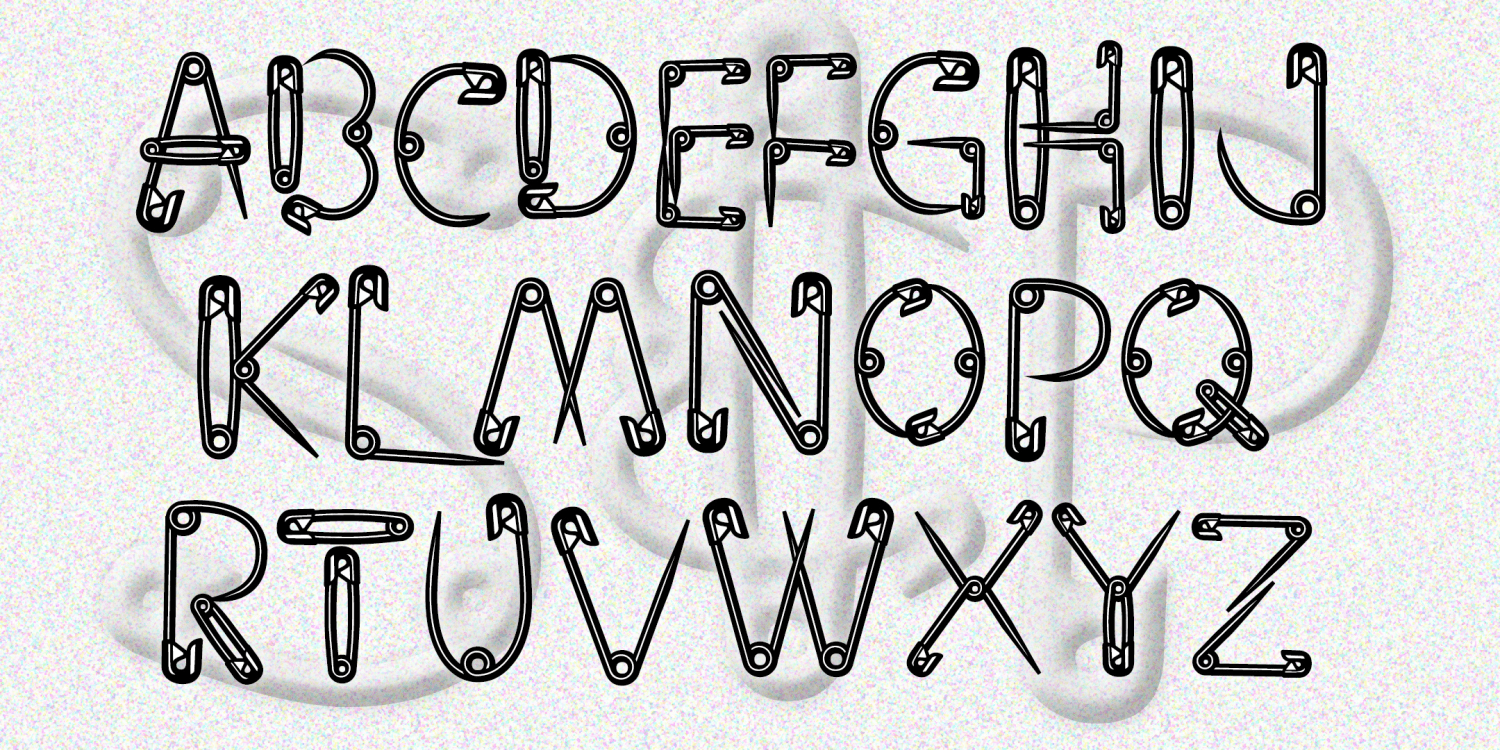
Safety Pin
About Safety Pin
SAFETY PIN has all its character made of safety pins. It was inspired by the June 1946 Ladies Home Journal cover. I started with J-O-U-R-N-A-L and imagined safety pins bent and twisted to form the other characters. May be the first font that appeals to…